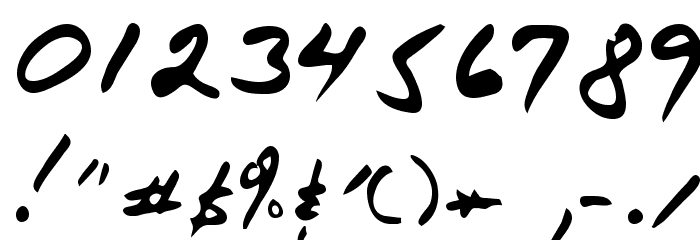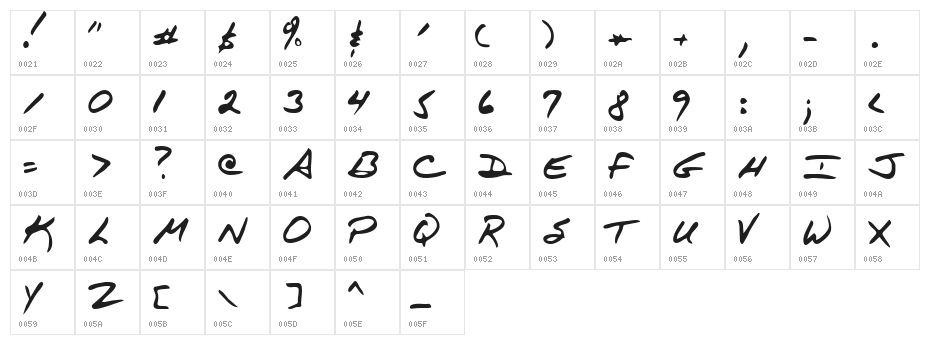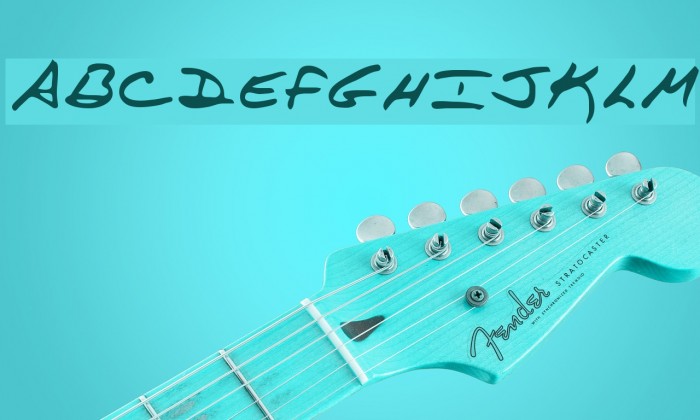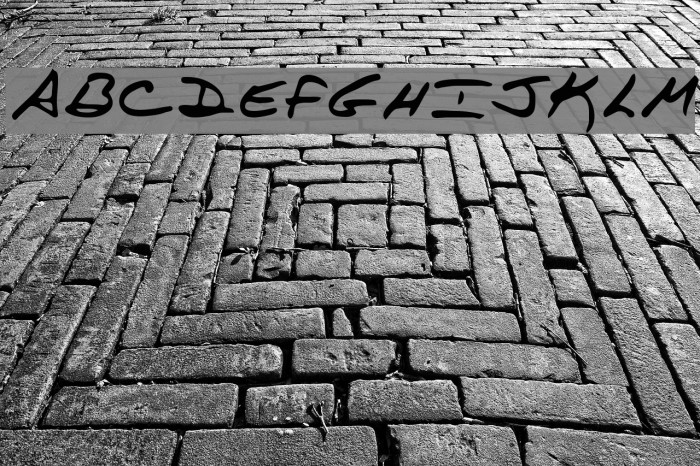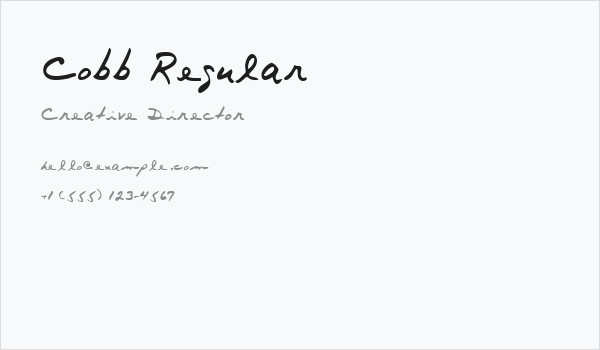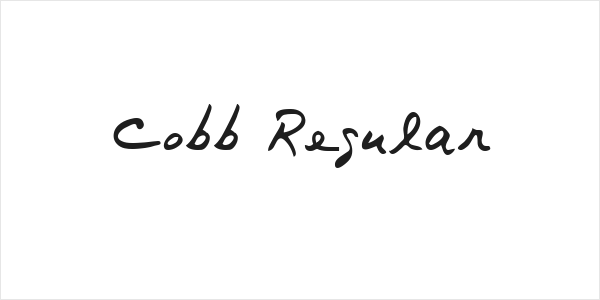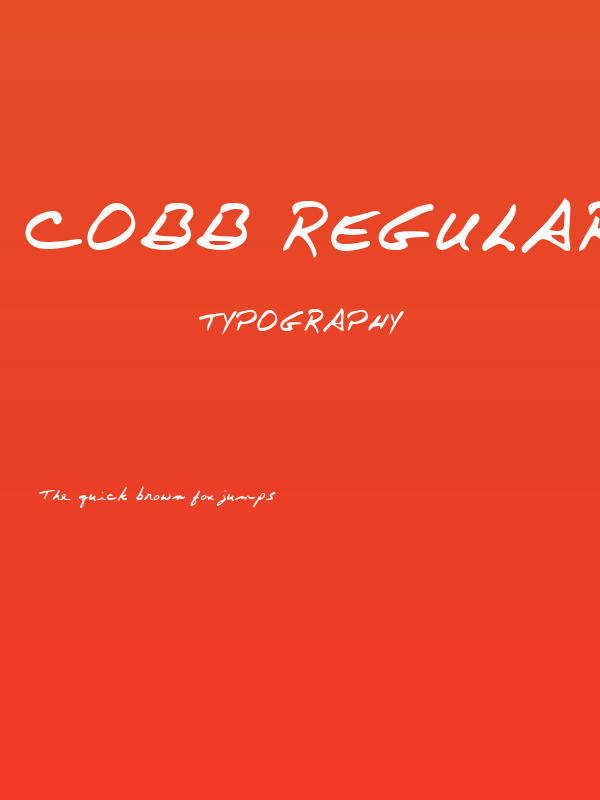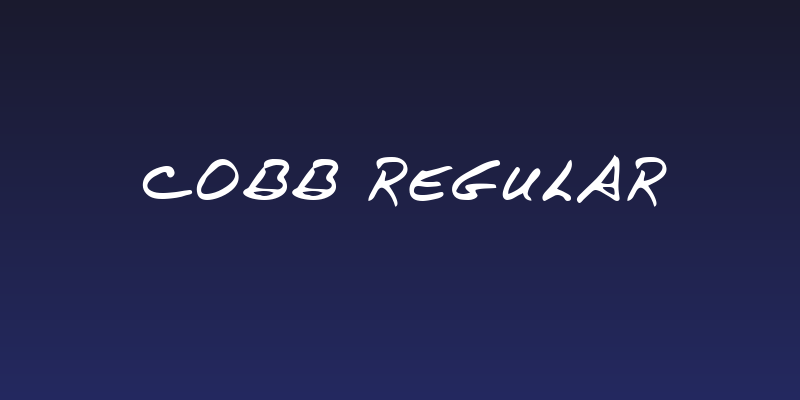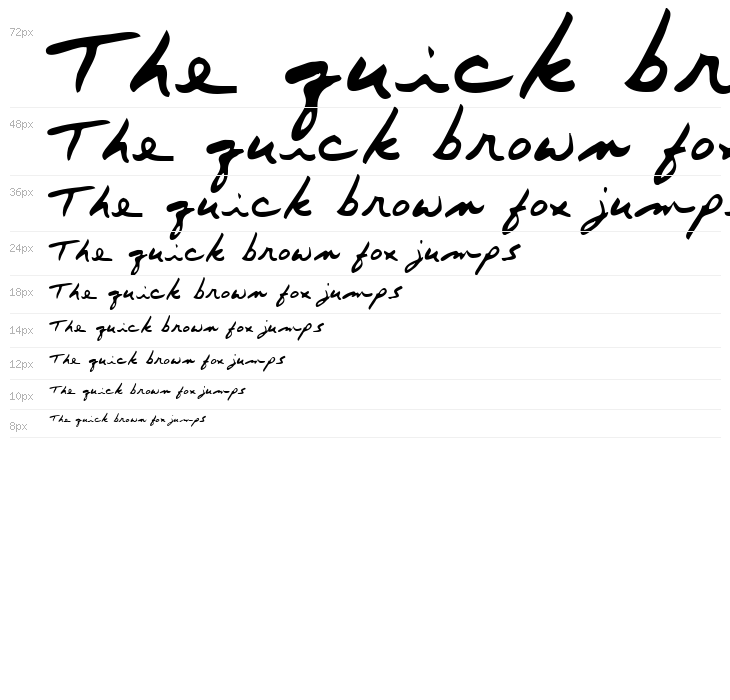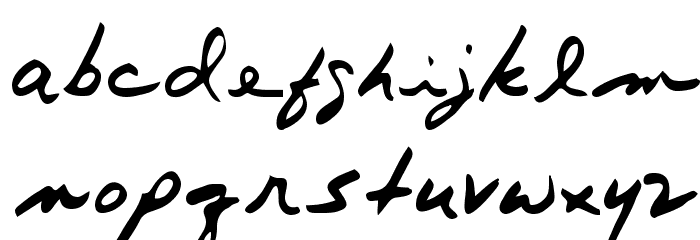
Cobb Regular Font
Cobb Regular Description
This font exhibits a dynamic and expressive style, characterized by its handwritten appearance. The letters are fluid and slightly slanted, giving a sense of motion and energy. The strokes vary in thickness, adding a lively and informal touch. Uppercase letters are bold and prominent, while lowercase letters maintain a consistent flow. The numerals are distinct and easily readable, complementing the overall style. Special characters are creatively integrated, maintaining the font's playful aesthetic. This font is perfect for projects that require a personal and artistic touch.
| Proposed Projects | Ideal for greeting cards, artistic posters, personal branding, and creative invitations. |